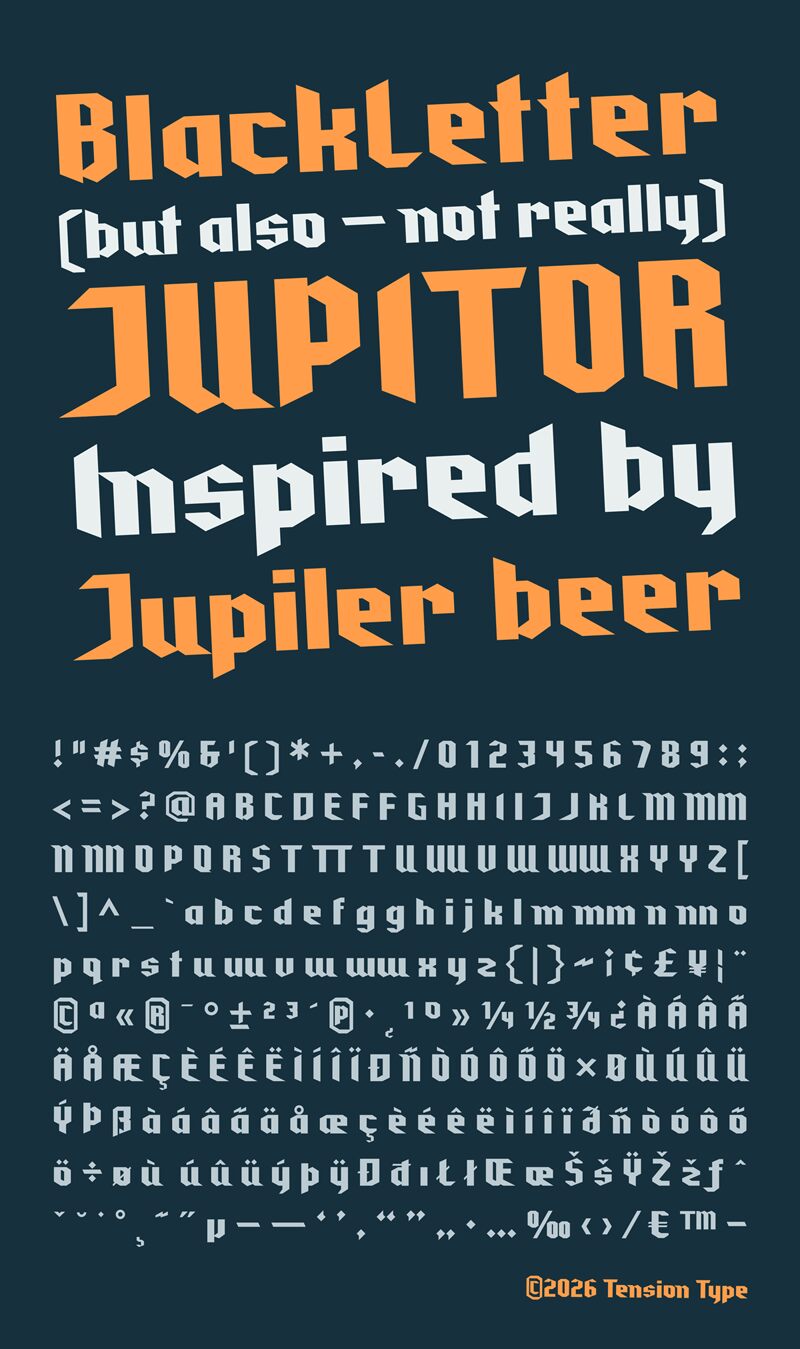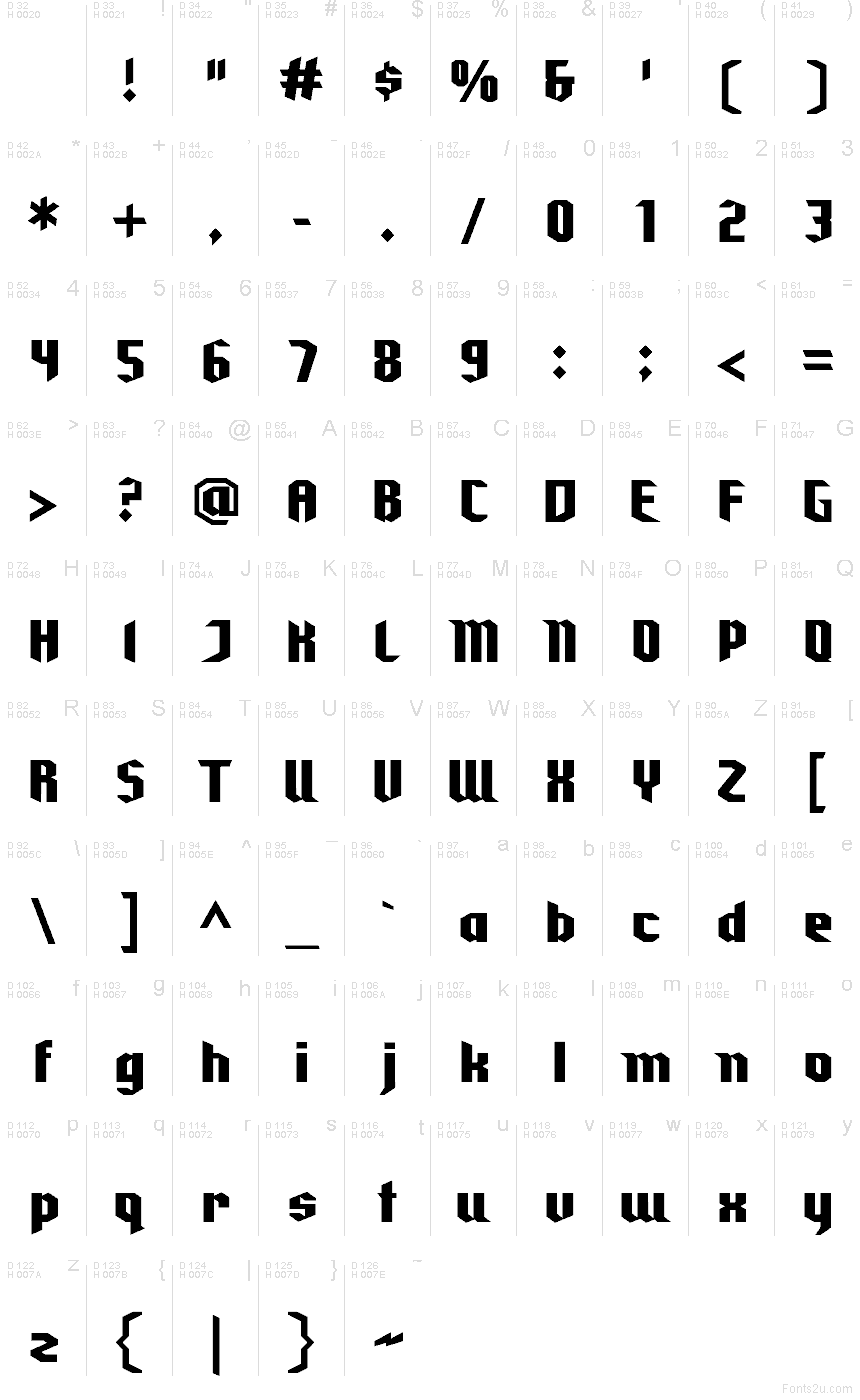
Jupitor Regular
Jupitor font by Michael Tension of Tension Type is a free modern Gothic font, with a heavy, ink-cut presence that feels carved from stone. Its sharp angles and squared weight give words a stern rhythm—authoritative without getting fussy—so headlines land fast and stay readable at a glance.
Using Jupitor, you’ll get a confident voice for album covers, streetwear logos, craft beer labels, game titles, tattoo-inspired branding, poster headlines, and editorial openers. This free font also shines on packaging seals and badge marks where you want punchy heritage vibes. Pair it with a clean grotesk sans for body text, and give the typeface generous tracking so it can breathe.
Jupitor is a typeface created from the six letters used in the original Jupiler Beer logo. No such typeface existed, so I made one.